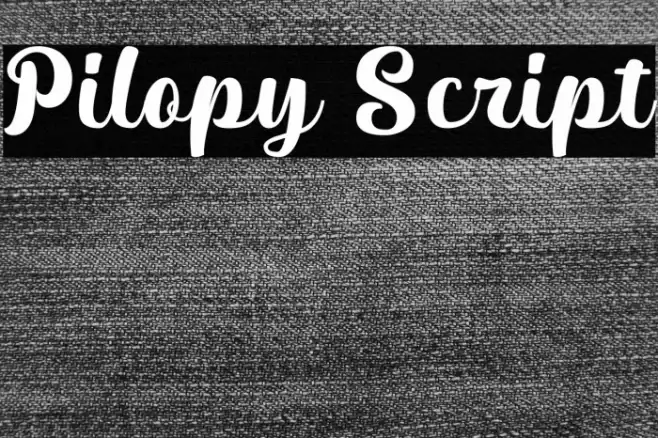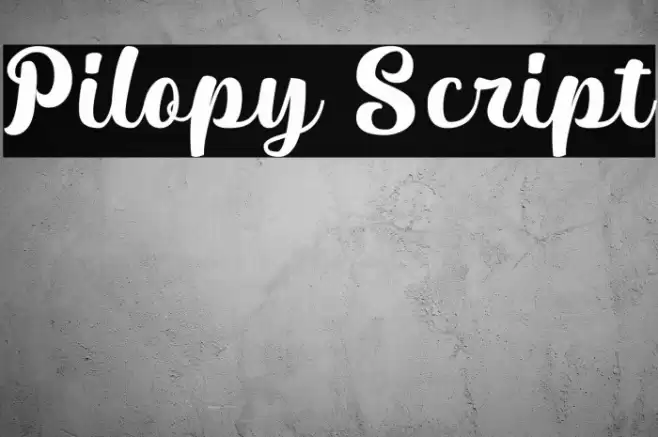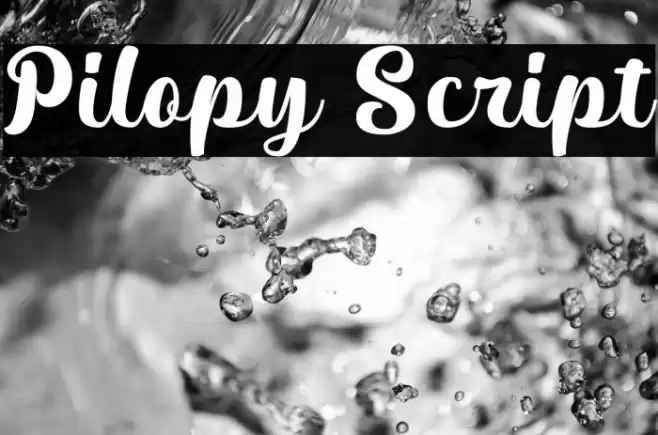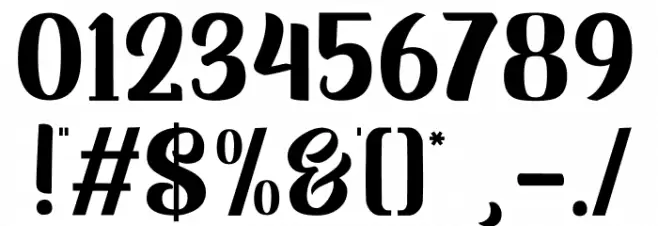
Pilopy Script Font
Pilopy Script Description
This font exudes a playful and elegant script style, characterized by its flowing, cursive letterforms. The uppercase letters are bold and expressive, with a slight slant that adds a dynamic feel. The lowercase letters maintain a consistent rhythm, featuring smooth curves and loops that enhance readability. The numerals are equally bold, with a uniform thickness that complements the overall design. Special characters are crafted with the same attention to detail, ensuring a cohesive appearance across all glyphs. The font's thick strokes and rounded terminals give it a friendly and approachable look, making it suitable for a variety of creative applications.
A bold, playful script font with flowing, cursive letterforms and rounded terminals from Script fonts.
- Proposed Projects: Ideal for branding, invitations, greeting cards, and playful design projects.
- Overall Style: Playful, Elegant
- Use Case: Logos, Invitations, Greeting Cards